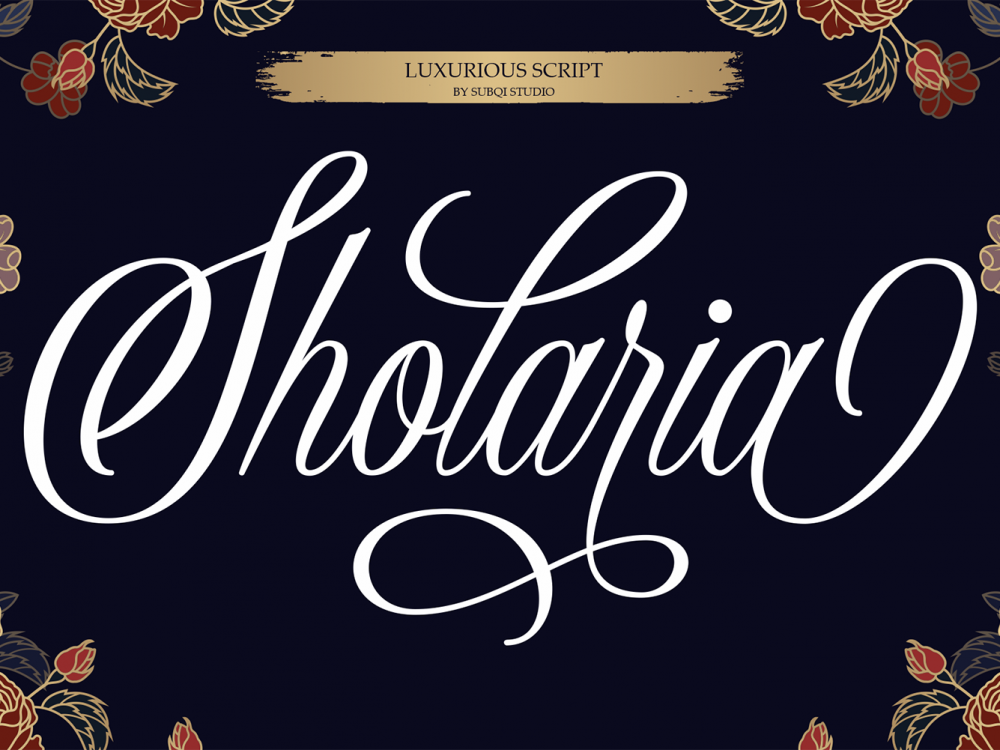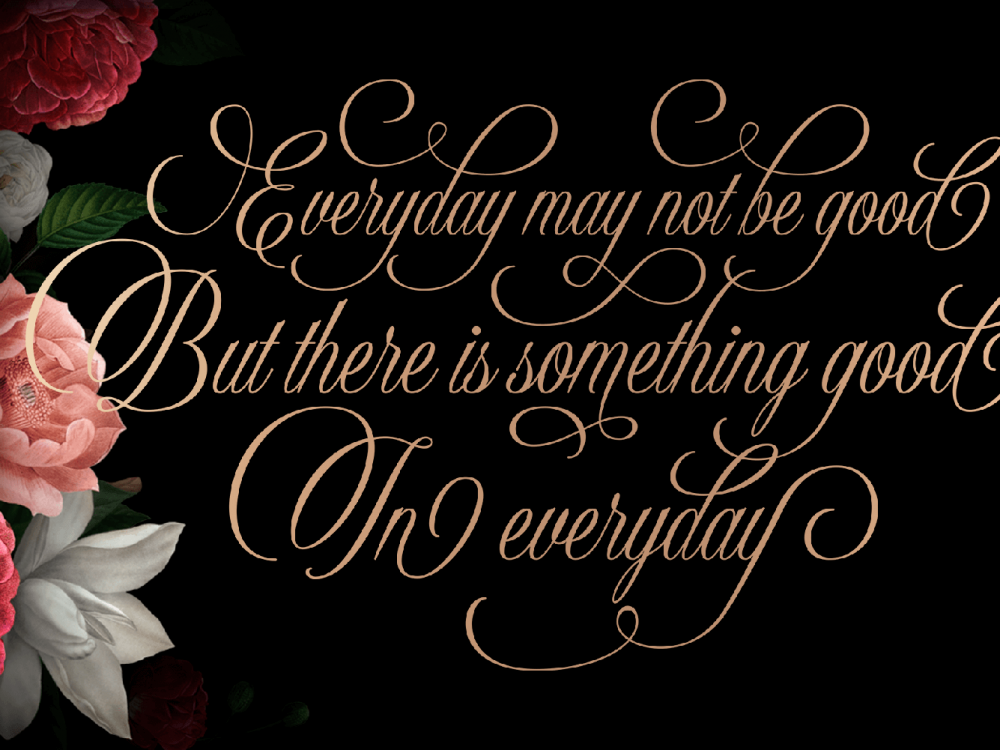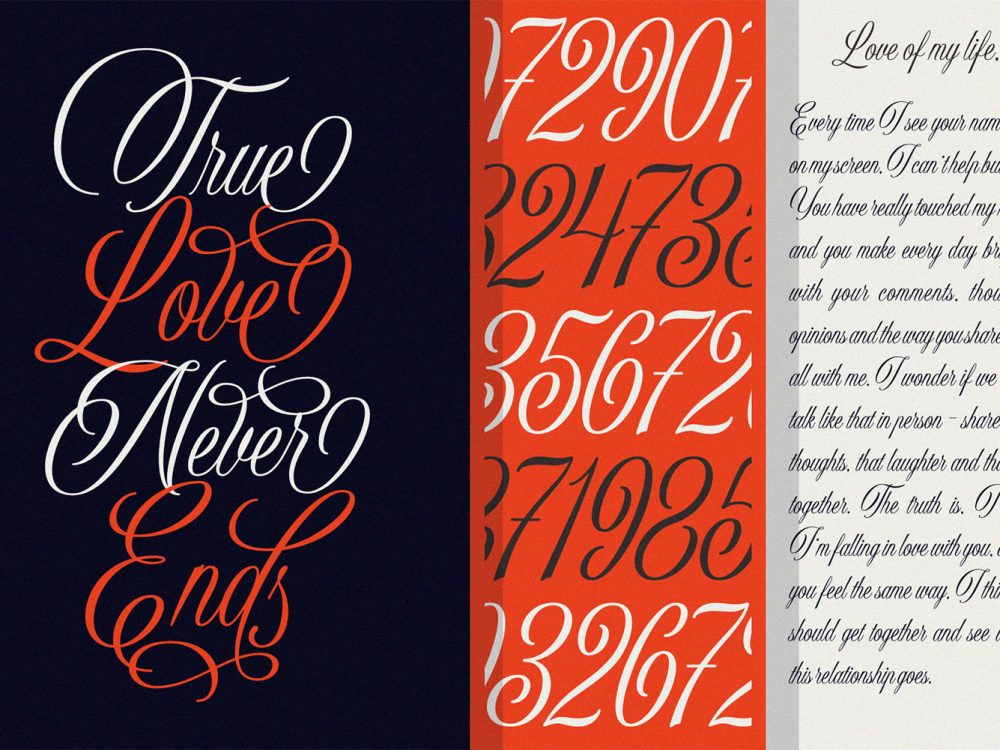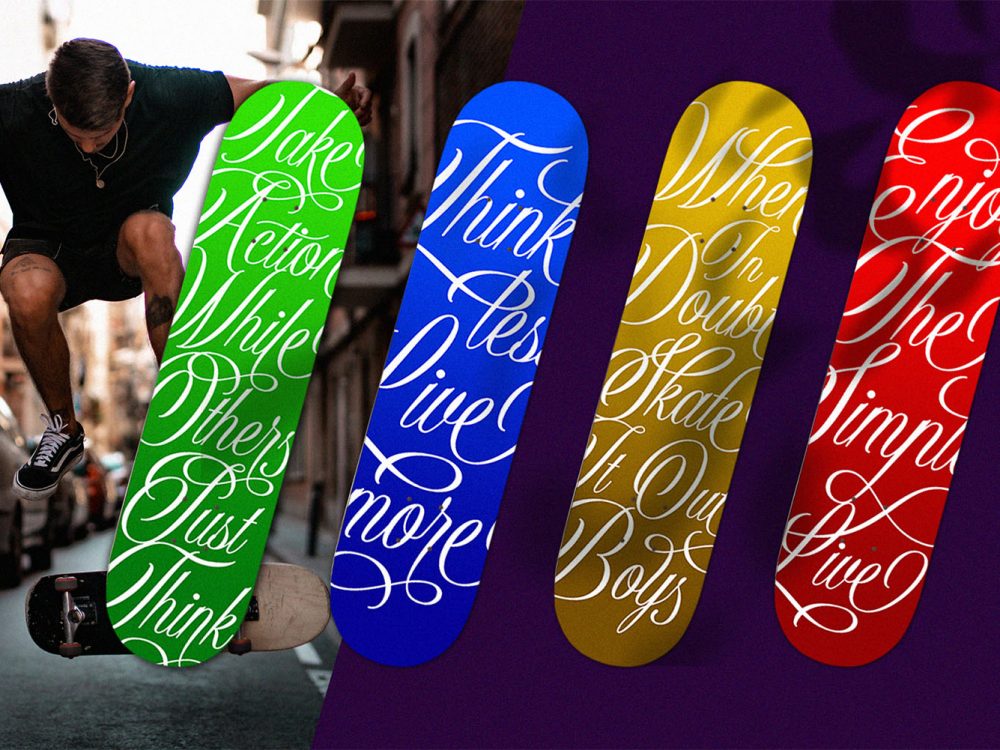
Sholaria Free Font
Sholaria Free Font is a stylish modern scripted handwritten font featuring an elegant calligraphic style. This font will help you create unique design projects and improve your professional level. This font will suitable for any project. Use this font to create memorable posters, wedding invitations, cards, branding, flyers, and more. Improve the quality and increase the popularity of your design projects using this font. If you like it don’t forget to check out the full version.